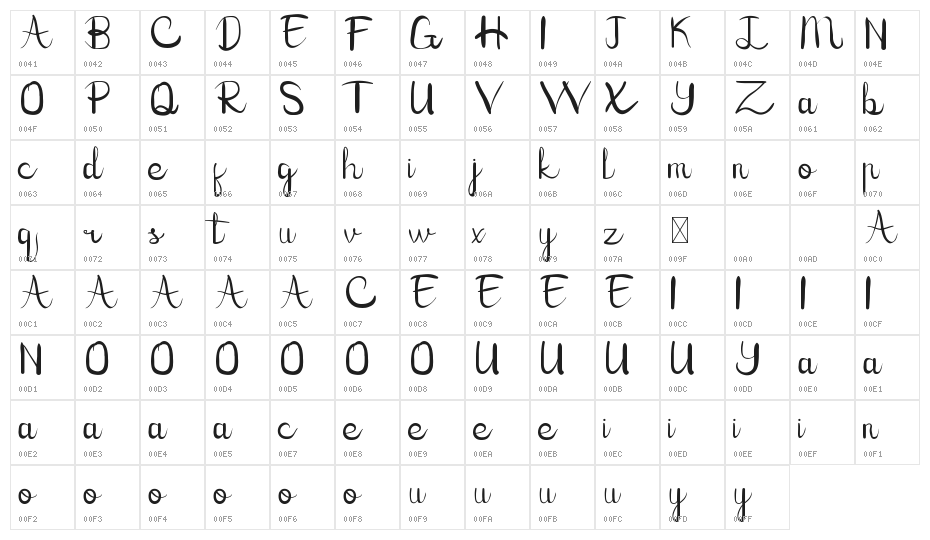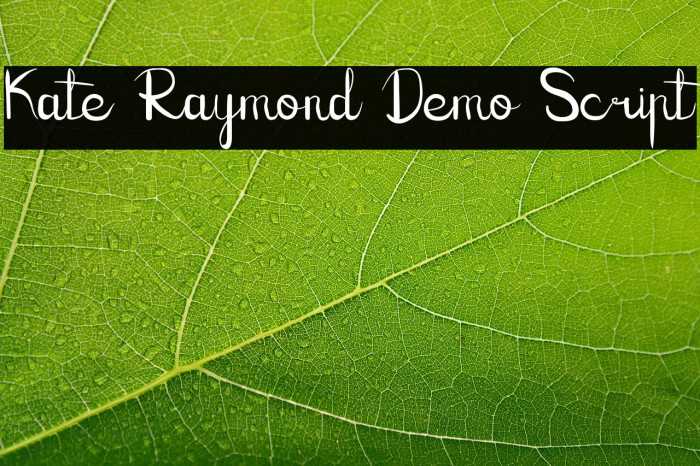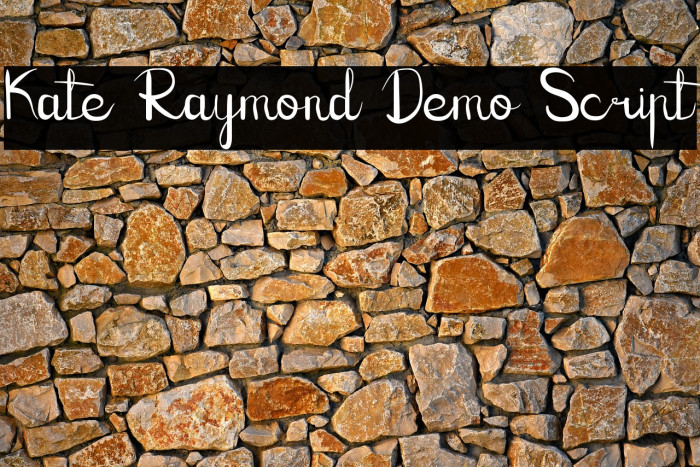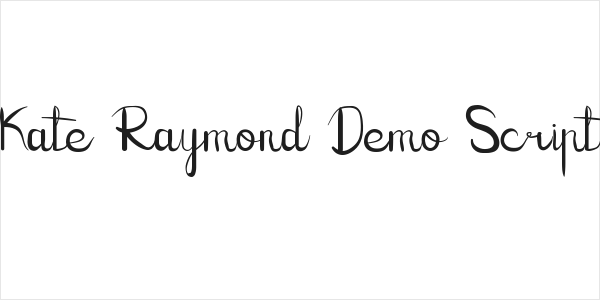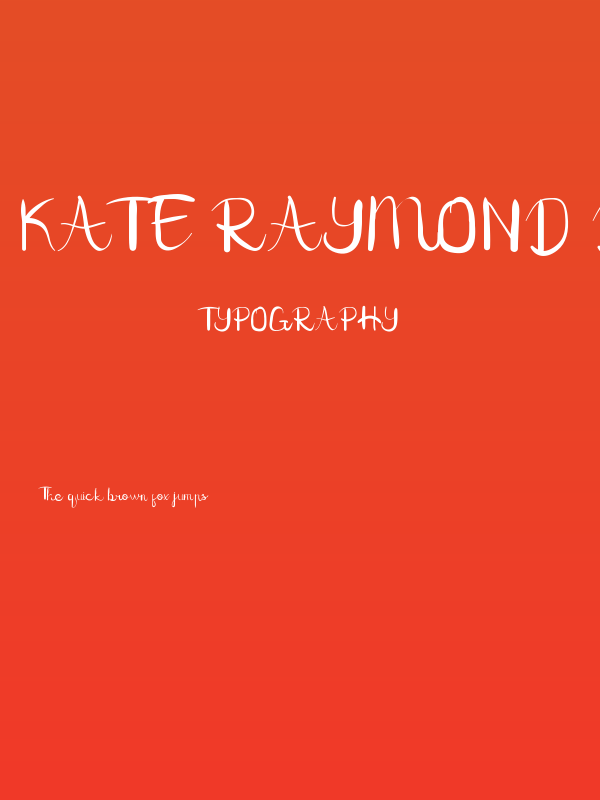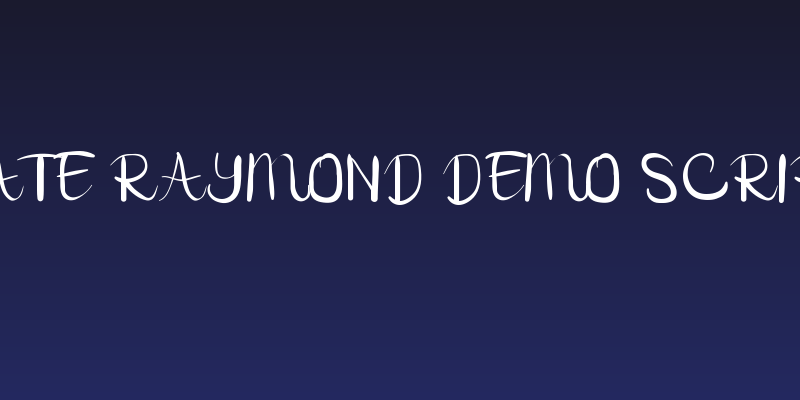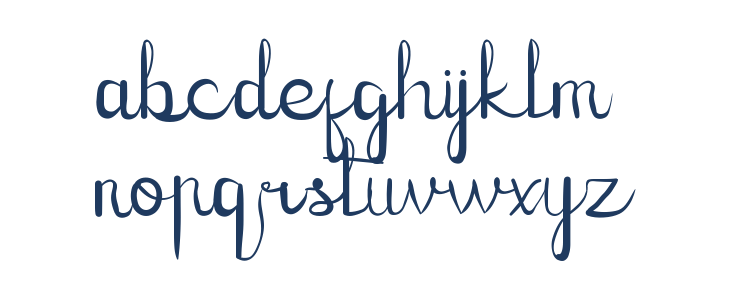
Kate Raymond Demo Script Font
Kate Raymond Demo Script Description
This script font features a playful and elegant design, characterized by its flowing, cursive style. The letters are interconnected, creating a sense of continuity and fluidity. The uppercase letters are slightly more embellished, with loops and curves that add a touch of sophistication. The lowercase letters maintain a consistent height, contributing to a harmonious appearance. The font's strokes vary in thickness, providing a moderate contrast that enhances readability while maintaining an artistic flair. This font is suitable for projects that require a personal and creative touch.
| Use Case | Logos, Invitations, Creative projects |
| Proposed Projects | Ideal for wedding invitations, greeting cards, branding, and creative projects that require a personal touch. |